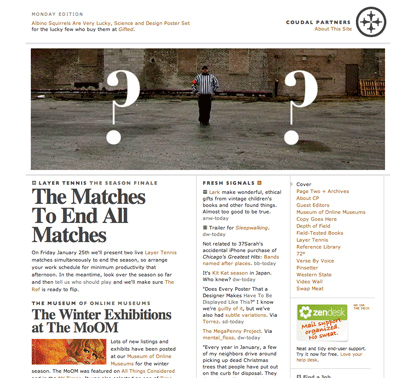
The Coudal Partner’s site has always been one that I’ve admired not only for its content, but for its design. A relatively popular site, it is one of the few examples of Times being used to great effect. A typeface most designers naturally avert from due to its default status. However, it is pressed into excellent use in the headlines around the site, at just the right size, just the right line-height, and just the right amount of negative kerning. I would venture to say the headlines are my favorite thing about the site, but there’s plenty more to admire.
attention grabbers
What really separates the main headlines from the pack is the seemingly perfect amount of letter-spacing, at a full two pixels it may seem extreme in the stylesheet but it’s perfect when rendered. Accenting the main headlines set in Times are categorical notations in Gill Sans. Although, you may see Verdana. But that’s one of the best parts about Coudal, rather than resort to a PHP script or sIFR, they’re happy to make use of the primary styling technology and allow the font-family to substitute similar fonts when the primary font is not available. This simple technique is often overlooked due to strict brand guidelines, or our own bias as designers to be absolutely perfect across browsers; or perhaps that it just seems too easy. 24ways has an excellent article on the subject of font stacking if you’re interested in learning more.
structural unity
The site makes extensive use of rules as well. Many sections of the site use variations of the column based layout, but all of them share the same structural elements which makes every page continue to feel as part of the cohesive whole. The site mimics a newspaper and the attention to hierarchy is obvious. The most recent article on the home page is larger than it’s previous siblings, and on pages where there is no time based hierarchy the primary content is given a proper focus. The site includes a plethora of different types of content, ranging from video, to imagery, and various lengths of text. But all are handled masterfully. The main banner area is flexible and handles video on some pages while retaining a more traditional approach as a banner image on others.
The site mimics a newspaper and the attention to hierarchy is obvious
One would think with nothing but shades of grey, a wheat gold, and the occasional dash of red that maintaining an intriguing design would be difficult but the simple color palette is just another element that ties the entirety of the site together.
criticism
Or lack thereof. There is little to be critical of but something that does irk me a bit is the lack of white-space between headlines within content as seen above, at times things feel rather claustrophobic. Also, something that has evolved over time as blogs have become more prominent is the use of a headline as a permalink to the article, it’s somewhat frustrating that the headlines here are not linked to their respective articles. The forum skin seems rather lacking considering the attention to detail placed elsewhere, and the typefaces used within it don’t quite match up with those used elsewhere.
conclusion
That all said, the site is a brilliant example of what can be achieved with a unified feel even across different layouts. The design has not changed much over the years and it’s easy to see why; an exemplary site for newspaper based sites.